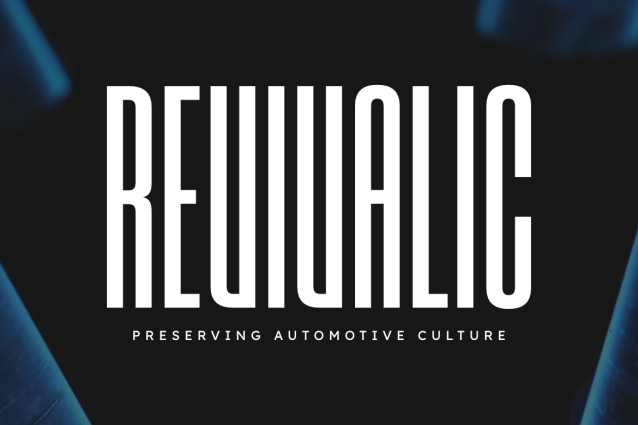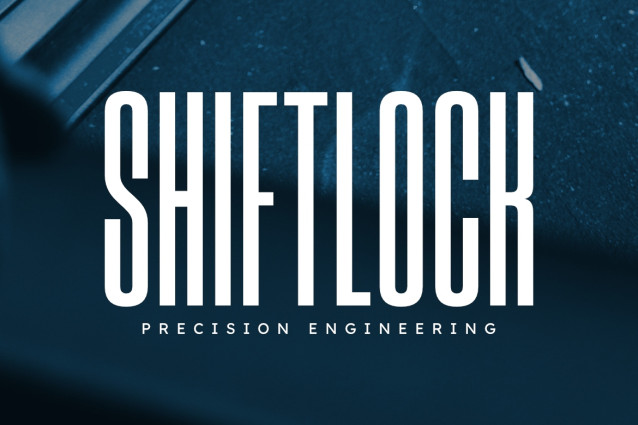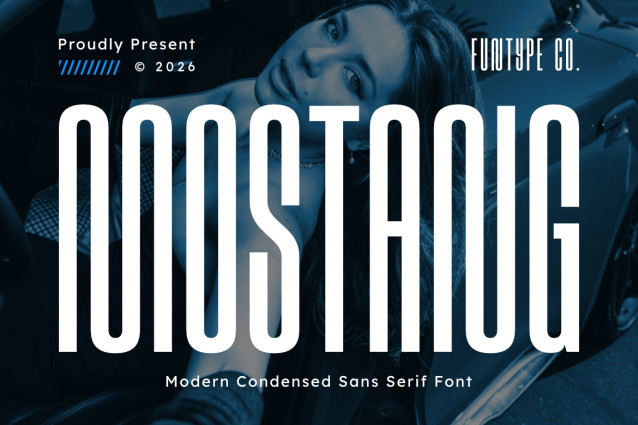
Mostang – Modern Condensed Sans Serif Font
Mostang is an extraordinary, stylish, and modern condensed sans serif font, engineered to bring a futuristic automotive presence, ultra-tall space-saving geometry, and an exclusive display aesthetic to contemporary graphic layouts. Featuring an elongated vertical profile, rounded outer corner contours, and distinctive inner curve accents, Mostang introduces a premium automotive brand identity, high-fashion editorial layout, luxury product showcase, and prominent digital media presentation designed to claim absolute visual focus.
This font family is the ultimate choice for creative directors, publication designers, and lifestyle brand managers looking to implement a standout typography identity for major text hierarchies. Whether you are developing bold corporate enterprise logotypes, automotive showcase posters, luxury beverage packaging labels, cinematic sci-fi/action movie title sequences, architectural portfolio headers, or prominent digital web banners, Mostang stands out with supreme legibility and commanding aesthetic confidence.